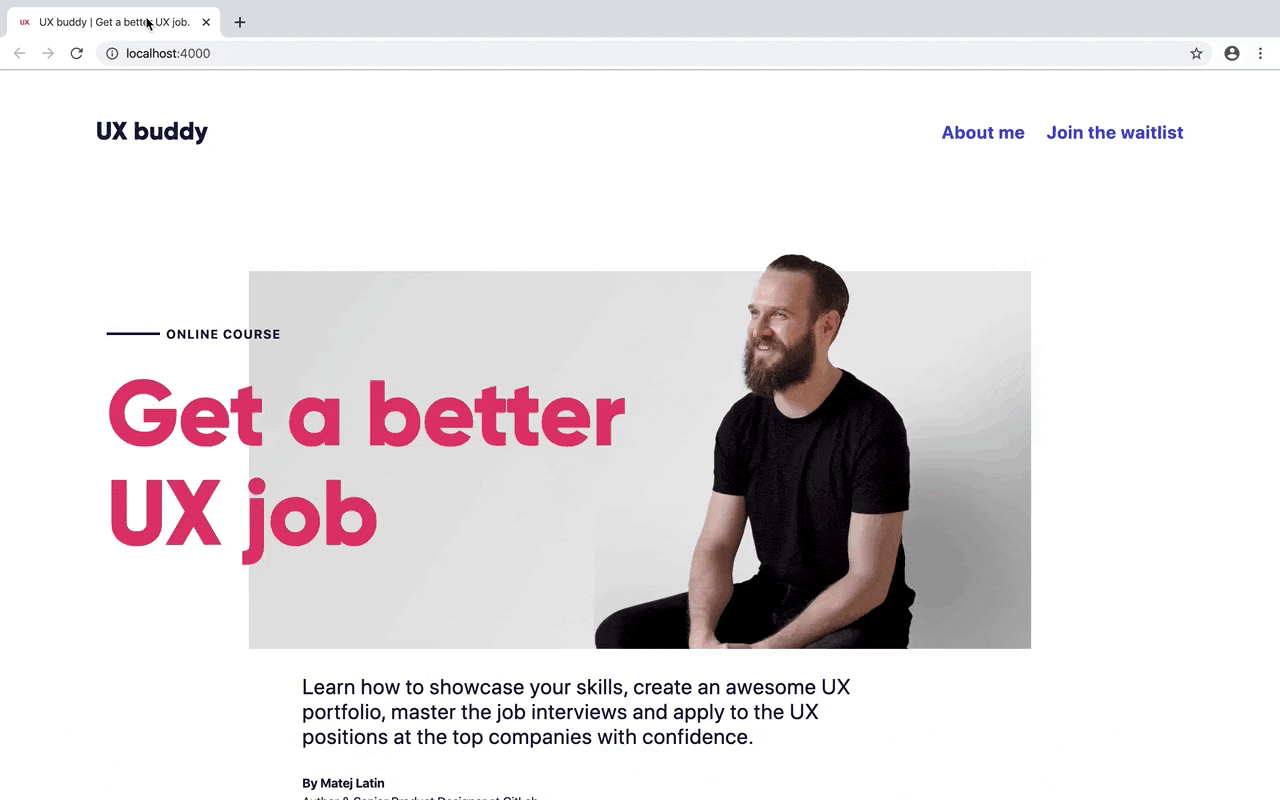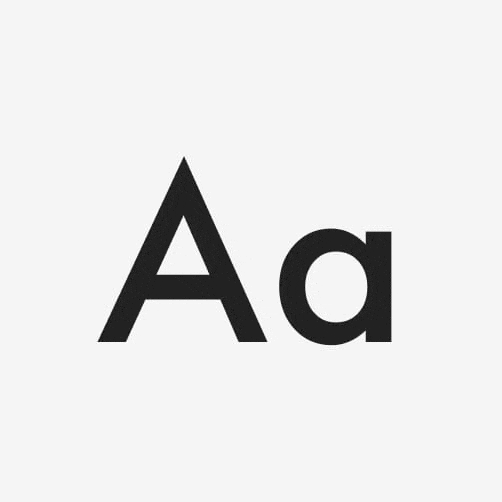
In the past, when loading custom fonts we couldn’t really avoid the flash of unstyled text (FOUT)—you know that split second when the website is loading and it uses a substitute font until it loads your custom one?
Yeah, that jarring transition was unavoidable. Flash of invisible text (FOIT) is supposed to improve that but because it hides the website’s text until the font is loaded, it introduces accessibility issues.
I just launched a website for UX Buddy—a new side project I recently started working on. I went through a long process of choosing the right font for it which I documented in my How to choose a font for a project article. Now I wanted to make sure that the visitors of the website don’t experience the jarring transition between the fallback and custom font while it’s loading. Could preloading the custom font help with that?
Default web font loading
Gilroy is a unique-looking geometric sans serif font and it’s hard to find a similar fallback font. My font stack for using it in CSS is the following:
font-family: "Gilroy", Futura, -apple-system, BlinkMacSystemFont, "Segoe UI", Roboto, Helvetica, Arial, sans-serif, "Apple Color Emoji", "Segoe UI Symbol";
This means that, by default, the browser will first show all my headings set in the first font that is available on the user’s computer. My first fallback font is Futura but because it’s not a common font on Mac OS or Windows, the browser will most probably default to Roboto, Helvetica or Arial. Neither of those is a good option because they’re all very different from Gilroy. I optimistically set the first fallback font to be Futura because at least it’s a geometric sans serif font—kinda similar. Still, the website loading resulted in a jarring transition.
The browser shows the text set in Futura first (the first fallback font from the stack available) and only switches to Gilroy once it’s loaded.
The browser shows the text set in Futura first (the first fallback font from the stack available) and only switches to Gilroy once it’s loaded. (Source)
For a type geek like me, that’s unacceptable. In the past, I often relied on hiding the text until the custom font was loaded so the user experienced the flash of invisible text (FOIT) during the website loading. I later learned that this can result in accessibility issues or, in some extreme cases, custom font not loading at all and all text on the website remaining invisible! 😱 So now I wanted to find out if preloading fonts or using font-display can help me with that.
Font preloading
So the first thing I wanted to test was font preloading. When do the fonts get loaded by default? Does preloading fonts change that? Based on MDN’s documentation, preloading content means:
The preload value of the <link> element’s rel attribute lets you declare fetch requests in the HTML’s <head>, specifying resources that your page will need very soon, which you want to start loading early in the page lifecycle, before browsers’ main rendering machinery kicks in. This ensures they are available earlier and are less likely to block the page’s render, improving performance.
So here’s how the website is loaded by default:
The font is among the last things that get loaded by the browser. 3G simulated loading took 7.04 seconds to load.
The fonts are pretty much the last things that are loaded. No wonder we have that jarring transition from the fallback to the custom font. So if I preload my custom font, will the website loading waterfall chart reflect that? And more importantly, will it have a positive effect on the website loading? Will it get rid of the jarring transition between fonts?
So I went ahead and added the following to the <head> in my HTML:
<link rel="preload" as="font" href="/assets/fonts/3A1C32_0_0.woff2" type="font/woff2" crossorigin="crossorigin">
I added this line of code even before the one that loads the CSS for the website. Let’s take a look at the effect it has on website and font loading.
The font is now among the first things that the browser starts loading. 3G simulated loading took 7.05 seconds to load, so no major impact on performance.
Ok, this is really interesting. It’s pretty much how I expected font preloading would work. We basically tell the browser to start loading the content before it stumbles upon it. Unlike the browser, we know it’ll need the fonts to fully load the website so it’s completely fine to tell it to start loading the fonts sooner. So instead of the default loading process:
we tell the browser to load the font immediately because we know that it’ll need it later on:
That’s all cool, but does it actually help removing the jarring transition between the fallback and custom font? Here’s how the website loads now: